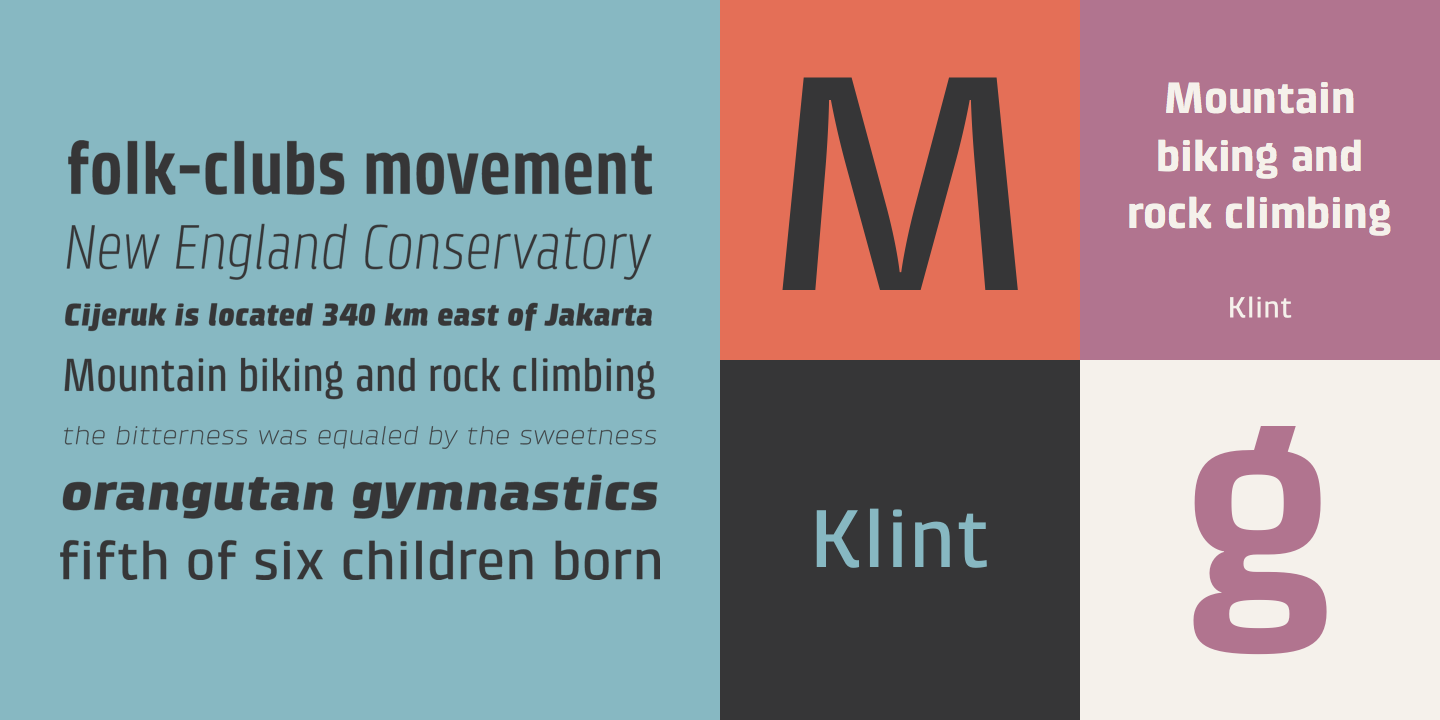
Klint Font Free Download offers designers a sophisticated typeface that embodies Scandinavian minimalism and artistic refinement with contemporary elegance. However, for commercial use, you must purchase this font. You can download it for free for testing purposes only.
Klint Font excels in refined design applications including art gallery branding, Nordic lifestyle brands, contemporary furniture companies, minimalist architecture firms, Scandinavian home décor packaging, modern museum exhibitions, clean beauty product labels, sustainable fashion brands, artisan craft materials, and sophisticated editorial layouts. This elegant typeface brings Nordic design sensibility to cultured projects.
What makes Klint Font truly exciting is its perfect capture of Scandinavian design philosophy with clean lines and understated sophistication that creates timeless visual harmony. The font features carefully balanced letterforms with subtle geometric influences and excellent proportions that reflect Nordic values of simplicity, functionality, and natural beauty. Its refined character and artistic heritage make it ideal for brands embracing sustainable design, craftsmanship quality, and the serene aesthetic of Northern European culture.
The Klint Font family typically includes multiple weights such as Light, Regular, Medium, Bold, and potentially Italic variations. These thoughtful options provide designers with complete typographic flexibility while maintaining the font's distinctive Nordic character and artistic sensibility across various applications and cultural contexts.
Whether you're developing Scandinavian-inspired branding, creating artistic publications, or designing lifestyle campaigns, Klint Font Free Download delivers the cultural authenticity and artistic sophistication that refined projects require. Its exceptional elegance and Nordic heritage make it invaluable for designers working with art institutions, lifestyle brands, and design-conscious companies requiring typography that celebrates simplicity, natural beauty, and the timeless appeal of Scandinavian aesthetic principles and cultural values.